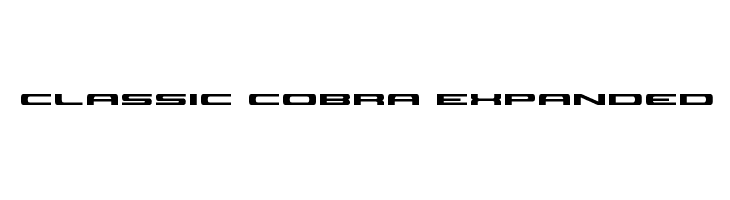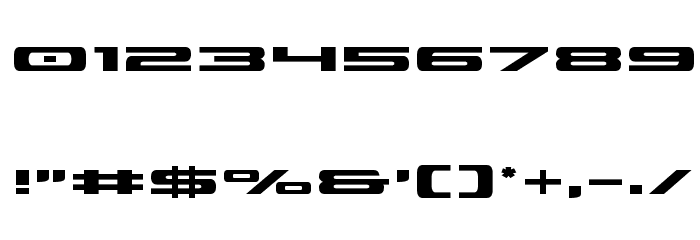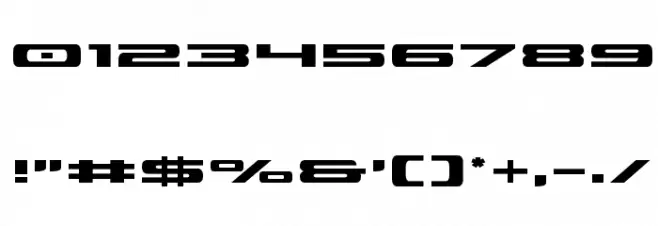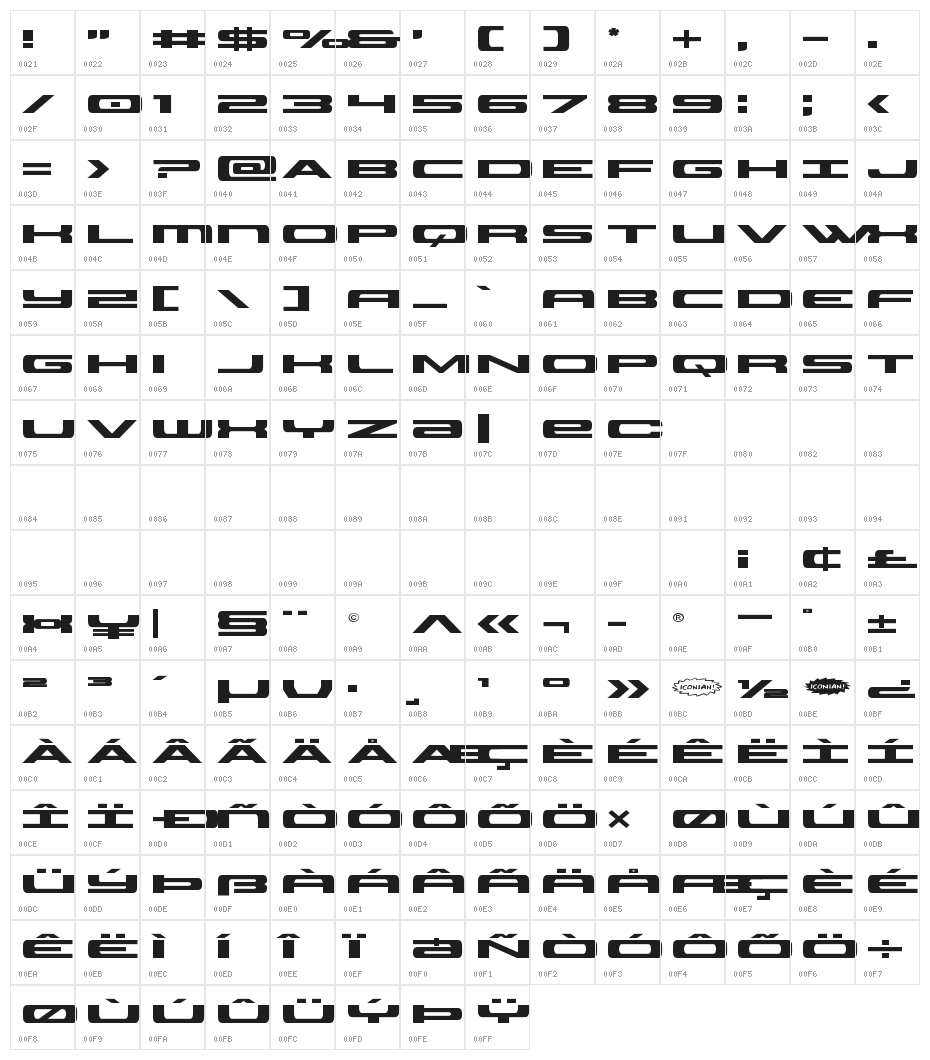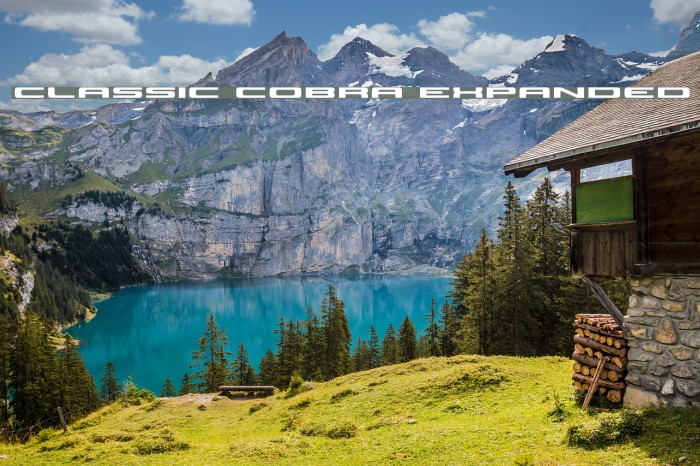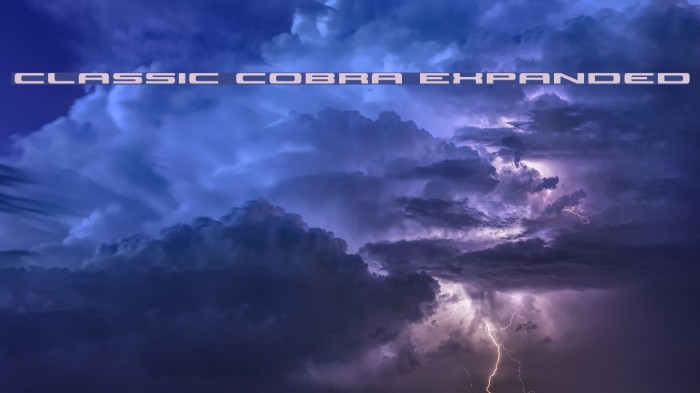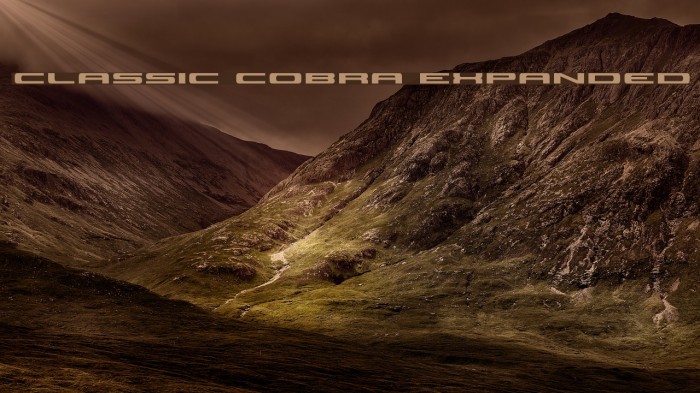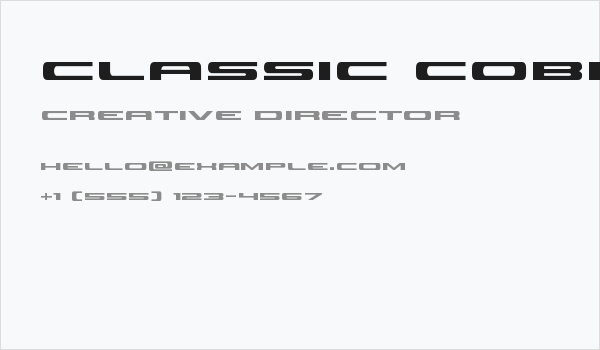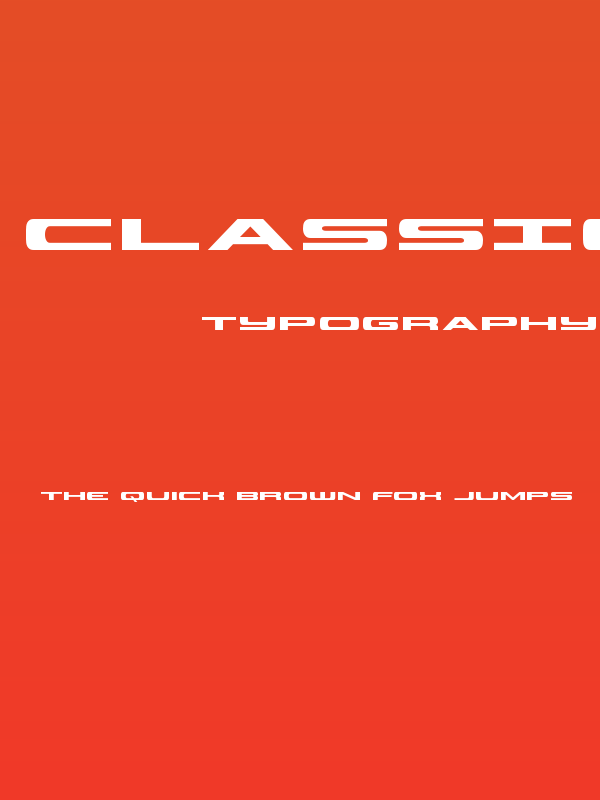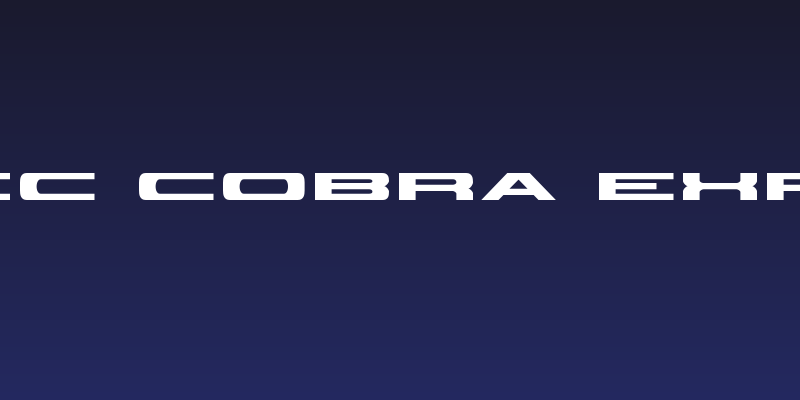
Classic Cobra Expanded Font
Classic Cobra Expanded Description
This font features a bold and futuristic design with a distinctly expanded width. The characters are geometric and angular, giving a sense of strength and modernity. The uppercase letters are particularly striking, with sharp edges and a uniform height that conveys a sense of cohesion and balance. The numerals and special characters maintain this bold aesthetic, ensuring consistency across all glyphs. The font's style is suitable for projects that require a strong visual impact, such as branding, headlines, or digital interfaces. Its expanded width allows for excellent readability, making it ideal for both print and digital media.
| Proposed Projects | Ideal for branding, headlines, digital interfaces, and any project requiring a strong visual impact. |